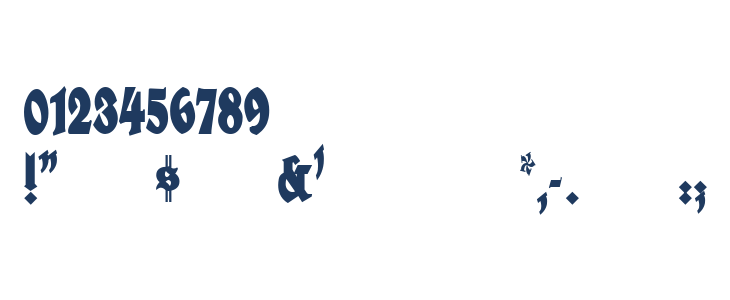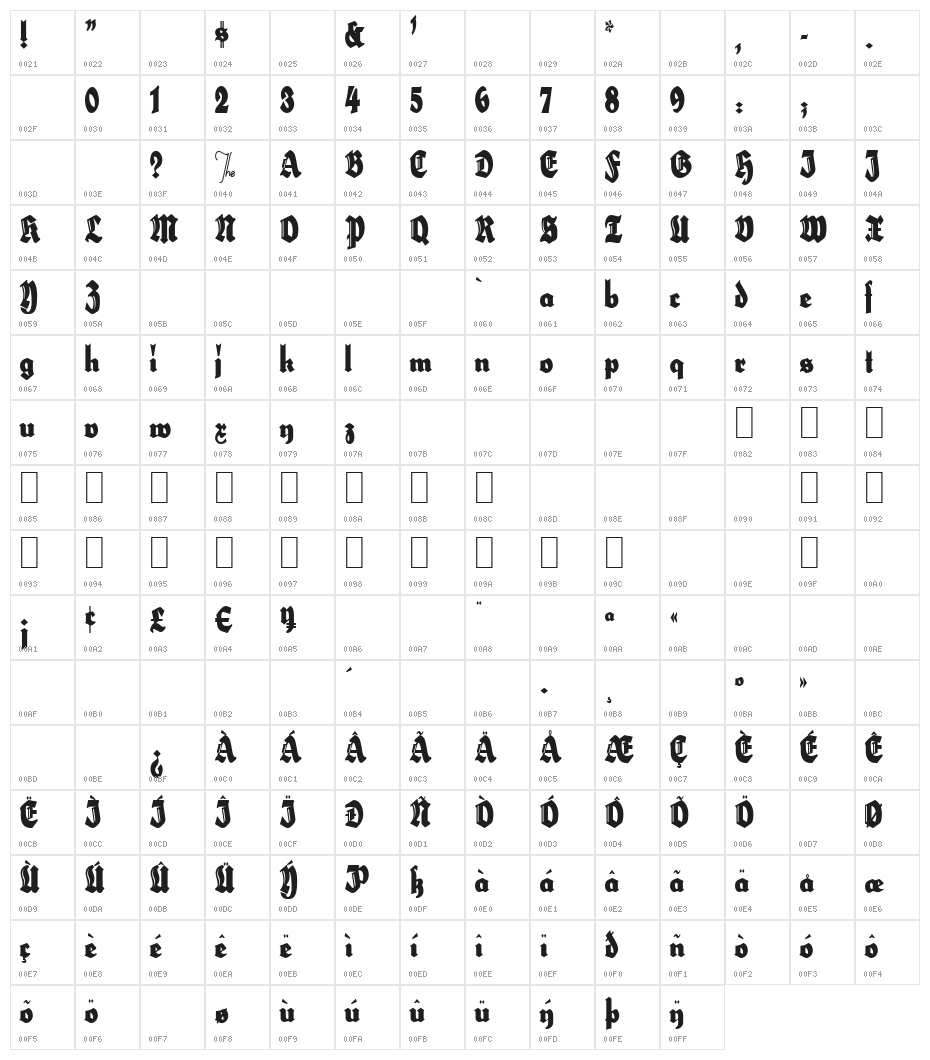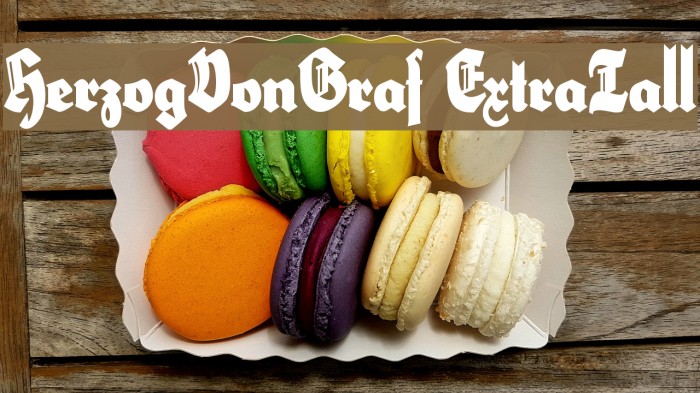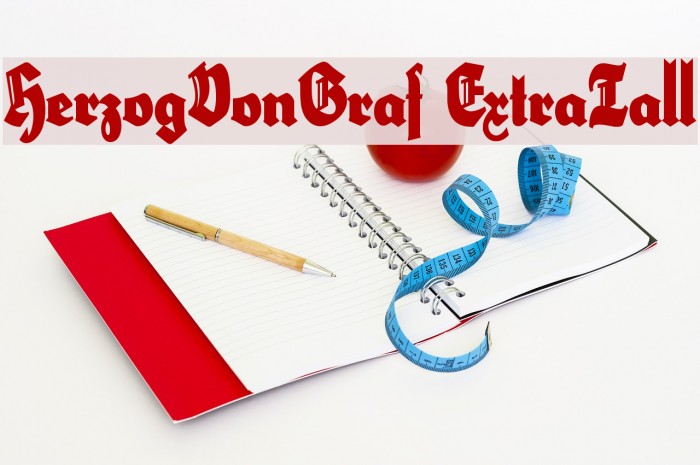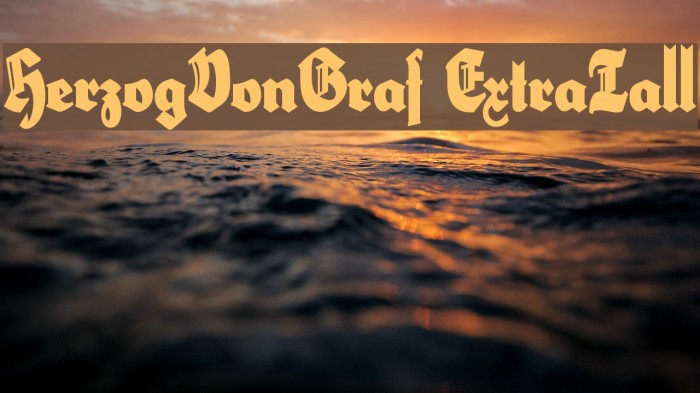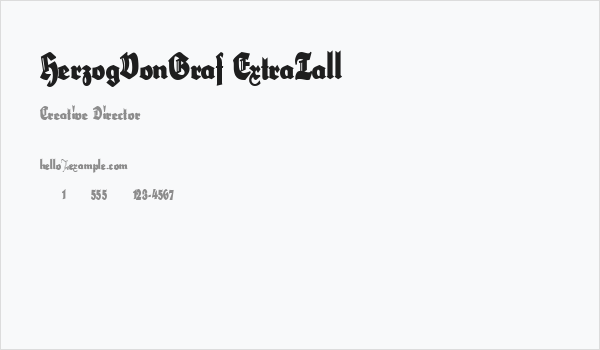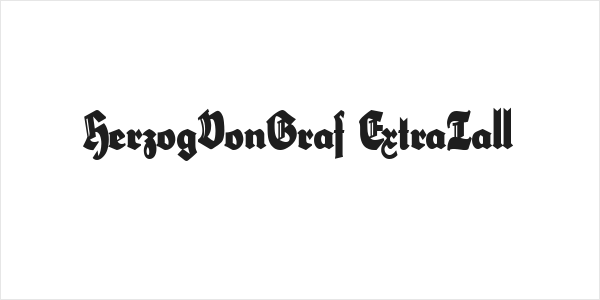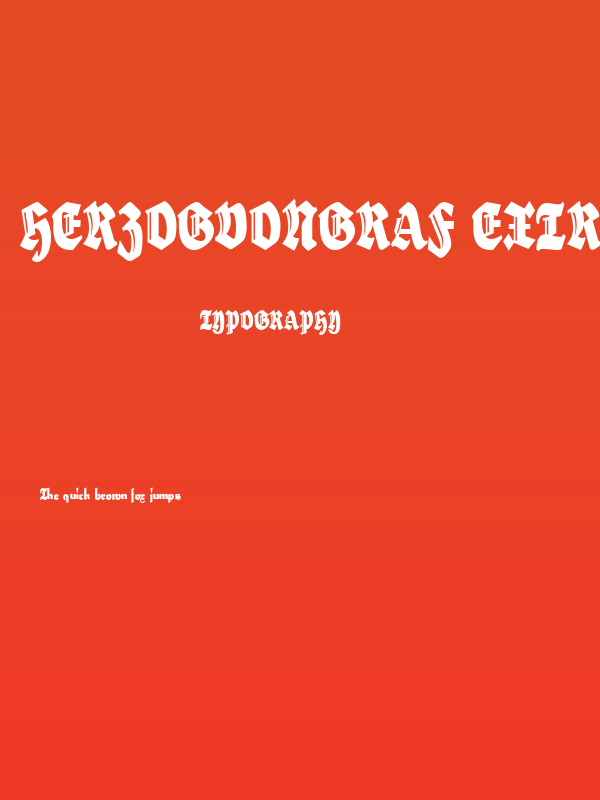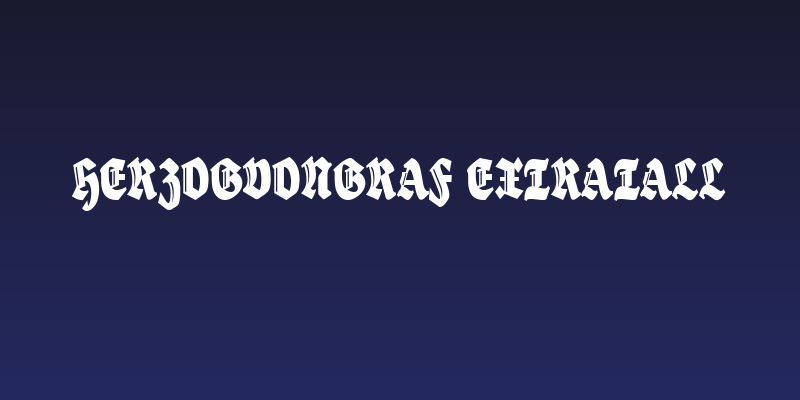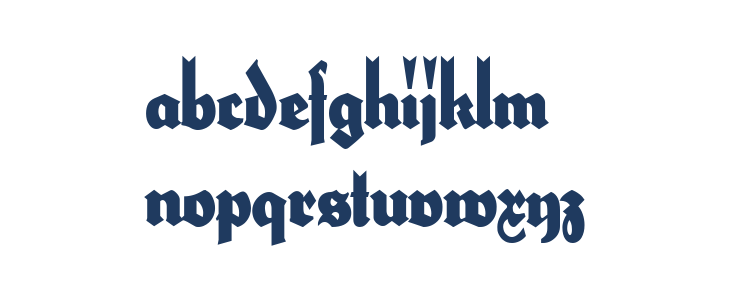
HerzogVonGraf ExtraTall Font
HerzogVonGraf ExtraTall Description
This font exhibits a bold and striking blackletter style, characterized by its sharp, angular lines and intricate detailing. The uppercase letters are particularly ornate, with elaborate serifs and flourishes that give them a regal and authoritative appearance. The lowercase letters maintain the same level of detail, ensuring consistency throughout the typeface. The numerals are bold and easily readable, while the special characters retain the decorative elements seen in the alphabet. This font is reminiscent of traditional Gothic scripts, often used in historical and formal contexts.
| Use Case | Headlines, Logos, Certificates |
| Proposed Projects | Ideal for projects requiring a historical or formal aesthetic, such as certificates, invitations, or branding for luxury products. |